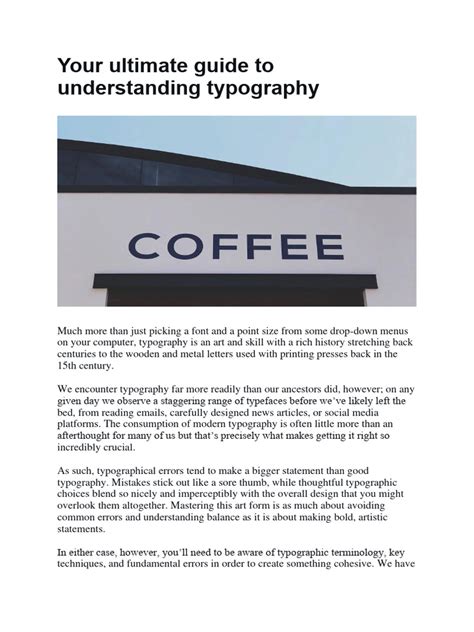
The Ultimate Guide To Fonts And Typography
The Ultimate Guide to Fonts and Typography
Hey everyone! Ever wondered what makes a website look super sleek or a poster pop? A lot of the time, it comes down to the fonts and typography we use. It’s not just about picking a pretty letter; it’s about how we arrange and present those letters to make our message clear and engaging. Think of it like this: the font is the voice, and typography is the way that voice is delivered. Pretty cool, right?
Why Fonts and Typography Matter, Guys!
So, why should you even care about fonts and typography? Well, good typography can totally transform your content. It can guide your reader’s eye, set the mood, and even make your text easier to read. Imagine reading a super important document in a font that looks like it was scribbled by a kindergartener – wouldn’t be ideal, right? Or trying to read a book with tiny, squished-together letters. Ugh! That’s where effective typography comes in. It’s all about making your message accessible and enjoyable for whoever is looking at it. It’s the silent salesperson for your brand, the mood-setter for your story, and the clarity-provider for your information. When you nail your font choices and layout, you’re not just presenting words; you’re creating an experience. You’re building trust, conveying professionalism, and leaving a lasting impression. Typography is literally everywhere – from the signs on the street to the apps on your phone, the books you read, and the websites you browse. Understanding the basics can seriously level up your design game, whether you’re a pro designer or just trying to make a killer social media post. It’s the difference between content that gets skimmed and content that gets devoured.
Diving Deep: Understanding Font Types
Alright, let’s get into the nitty-gritty. When we talk about fonts , we’re basically talking about the style and appearance of our letters. There are a bunch of different types out there, but the main players you’ll hear about are Serif , Sans Serif , Script , and Display fonts.
Serif fonts are the classic ones, guys. Think Times New Roman or Georgia. They have these little decorative strokes at the ends of the letters, called serifs. These serifs can make text easier to read in long blocks, like in books and newspapers, because they create a visual line that helps guide your eye. They often give a sense of tradition, formality, and trustworthiness. If you’re going for a classic, elegant, or authoritative vibe, serif fonts are your go-to. They’ve been around forever and still hold a lot of weight in the design world. They can add a touch of sophistication and a feeling of established credibility to your designs.
Then you’ve got Sans Serif fonts . The name literally means “without serifs.” So, these are the clean, modern fonts like Arial, Helvetica, or Open Sans. They don’t have those little decorative bits. Sans serifs are super popular for websites and digital displays because they tend to look cleaner and more modern on screens. They’re great for headlines, subheadings, and shorter blocks of text where you want a clear, straightforward look. They convey a sense of simplicity, directness, and approachability. Think of them as the workhorses of the digital age – versatile, readable, and always reliable. They’re perfect for branding that wants to feel contemporary and unfussy.
Script fonts , on the other hand, are meant to look like handwriting or calligraphy. Think of fancy wedding invitations or elegant logos. They can be super beautiful and add a personal, artistic touch. However, they can be tricky to read in large amounts of text, so they’re usually best for short headings or decorative elements. Use these sparingly, guys, unless you want your readers to need a magnifying glass!
Finally, we have Display fonts . These are the wild ones, the showstoppers! They’re designed for impact and are perfect for headlines, posters, or anything where you want to grab attention. They come in all sorts of crazy and creative styles. Just remember, they’re usually not great for body text because readability goes out the window. They are meant to be seen from a distance and make a statement. Think bold, artistic, and attention-grabbing.
Choosing the right font is like picking the right outfit for an occasion – you want it to fit the context and make the right impression. And don’t be afraid to mix and match, but do it wisely! A good rule of thumb is to pair a more decorative font with a simple, readable one to create contrast and hierarchy.
Typography: The Art of Arranging Text
Now, typography isn’t just about the fonts themselves; it’s about how we use them. Typography is the art and technique of arranging type to make written language legible, readable, and appealing when displayed. It’s about making sure the words not only look good but are also easy to digest. This involves a bunch of elements, and mastering them can make a HUGE difference in your designs.
Key Elements of Typography
Let’s break down some of the key players in the typography game:
• Hierarchy : This is super important, guys! Hierarchy is all about guiding the reader’s eye through your content. You use different font sizes, weights (like bold or regular), and styles to show what’s most important (like the main title), what’s secondary (like subheadings), and what’s the main body of text. Think of it like a roadmap for your reader. A clear hierarchy ensures that people can quickly scan your content and understand its structure. Without it, everything looks like a jumbled mess, and readers get lost. You want your main headline to scream “Read me!” while your body text whispers “Here’s the info you need.” This visual guidance is crucial for usability and comprehension.
• Alignment : This is about how your text lines up. You can align text to the left (ragged right), to the right (ragged left), center, or justify it (so both left and right edges are straight). Left alignment is the most common and generally easiest to read for large blocks of text in Western languages. Centered text can look formal or elegant but can be hard to read in long paragraphs. Justified text can look neat and tidy like in books, but it can create awkward spacing between words, which can be distracting. Good alignment creates a clean, organized look and makes text feel more professional. It contributes to the overall visual harmony of your design.
• Proximity : This is about how close or far apart elements are. Things that are related should be grouped together, and things that are unrelated should have space between them. This creates visual units and helps the reader understand the relationships between different pieces of information. Think of it as tidying up your desk – putting all your pens in one cup and your papers in another. Proximity helps reduce clutter and makes your design easier to process.
• Repetition : This involves reusing the same elements throughout your design – like using the same font for all your headings, or the same color for all your call-to-action buttons. Repetition creates consistency and strengthens your design’s identity. It makes your work feel cohesive and professional.
• Contrast : Contrast is about making different elements stand out from each other. This could be through using different font sizes, weights, colors, or even different font families. Contrast helps draw attention to key elements and makes your design more visually interesting. For example, pairing a thick, bold headline with a light, regular body text creates strong contrast and ensures the headline grabs attention. Contrast prevents your design from looking flat and monotonous.
• White Space (or Negative Space) : Don’t be afraid of empty space, guys! White space is the area around and between elements. It’s not wasted space; it’s crucial for giving your design breathing room. Ample white space makes text easier to read, reduces visual clutter, and helps focus the reader’s attention on the content. It’s like giving your eyes a place to rest. It adds a touch of sophistication and elegance, making your design feel less cramped and more premium. It can also be used strategically to highlight important elements.
• Kerning, Leading, and Tracking : Okay, these are a bit more technical, but they’re super important for fine-tuning typography .
• Kerning is the space between specific pairs of letters. Some letter combinations, like ‘AV’ or ‘To’, might need the space adjusted so they look balanced. It’s all about making those tricky letter pairs look just right.
• Leading (pronounced ‘ledding’) is the space between lines of text. Too little leading and the lines can run into each other; too much and the text feels disconnected. Getting the leading right is crucial for readability.
• Tracking is the overall spacing between all characters in a block of text. You adjust tracking to make a line of text fit or to affect its density.
Mastering these details can elevate your text from simply readable to truly beautiful. They are the secret sauce that separates good typography from great typography.
Putting It All Together: Creating Impact
So, how do you actually use all this knowledge? It’s about making conscious decisions. When you’re designing anything – a flyer, a presentation, a website – ask yourself:
• What’s the main message I want to convey?
• Who is my audience?
• What mood or tone am I trying to set?
Your font choices and typographic treatments should directly answer these questions. For a professional business report, you’ll likely lean towards clean sans-serifs or classic serifs with a strong hierarchy and ample white space. For a fun, quirky event poster, you might experiment with bold display fonts for the title and a more readable sans-serif for the details. The key is consistency and purpose . Every choice should serve the overall goal of your design.
And remember, practice makes perfect , guys! The more you play around with different fonts and typographic styles, the more intuitive it will become. Look at designs you admire and try to deconstruct why they work. What fonts are they using? How is the text arranged? What makes it so appealing?
Typography is a powerful tool. It can make or break your message. By understanding the different types of fonts and the principles of typography, you can ensure your words are not only seen but also felt and understood. So go forth, experiment, and make your text shine!
The Future of Fonts and Typography
As technology evolves, so does the world of fonts and typography . We’re seeing more dynamic and variable fonts that can adapt to different screen sizes and contexts. Augmented reality and virtual reality are opening up new frontiers for how we experience typography, making it more interactive and immersive. AI is even starting to play a role, helping designers generate new font styles or optimize text for readability. It’s an exciting time to be involved with typography, with new tools and possibilities constantly emerging. Web fonts have become incredibly sophisticated, allowing for a vast array of typographic expressions online. The rise of responsive design means that typography must be flexible and adaptable, ensuring a great reading experience across all devices. This has led to an increased appreciation for font families that offer a wide range of weights and styles, allowing designers to create rich typographic hierarchies within a single typeface. The ongoing exploration of motion typography, where text itself becomes animated, is another area pushing the boundaries of how we perceive and interact with written language. These advancements mean that the fundamentals of good typography remain critical, but the tools and creative potential are greater than ever before.
Ultimately, whether you’re designing a humble business card or a massive digital billboard, understanding the power of fonts and typography is essential. It’s about making your message clear, engaging, and memorable. So, next time you’re creating something, pay attention to the details. Your readers will thank you for it!